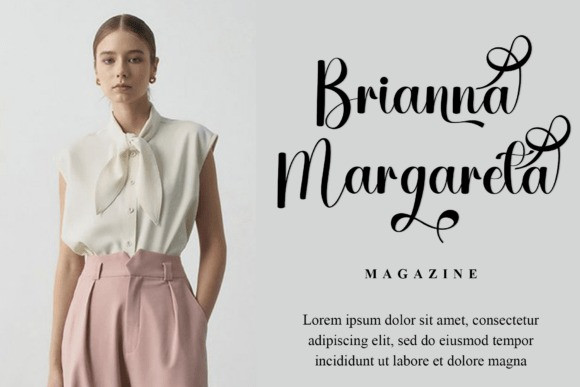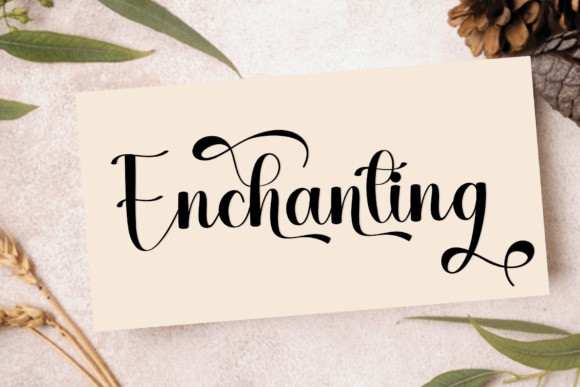
California Handmade Font
California Handmade Font is a graceful modern calligraphy script with high-contrast strokes, long swashes, and a smooth, flowing baseline. Lively curves and refined terminals create romantic wordmarks that feel bespoke yet readable. Designed for wedding suites, boutique logos, product packaging, and social quotes, it also works beautifully in Cricut/Silhouette crafts thanks to OpenType alternates & ligatures and multilingual support.